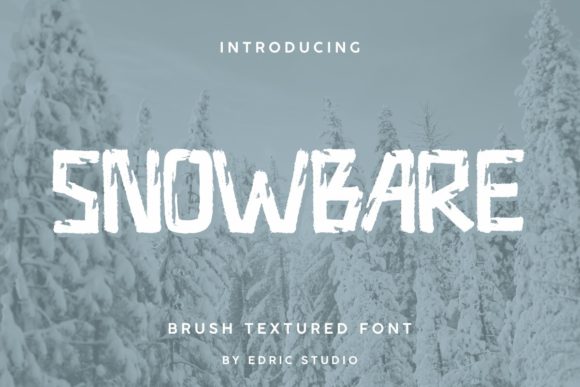
In a world of digital storytelling, where words dance and images enchant, Snowbare Font emerges as a masterpiece, a symphony of creativity designed to elevate your visual expressions. Immerse yourself in the world of Snowbare, a display font that captivates and inspires. Whether you're a seasoned designer or a budding artist, Snowbare becomes your creative ally, transforming your ideas into stunning realities.
Step into the realm of photography, where Snowbare shines as the perfect companion. Its bold and brushed strokes add a touch of elegance to your captivating shots, enhancing the emotions and stories within. With Snowbare as your creative partner, your photographs transcend mere images, becoming captivating narratives that speak to the soul.
Beyond photography, Snowbare's versatility extends to the limitless world of digital design. Craft eye-catching presentations that leave a lasting impression, or create greeting cards that warm hearts and bring smiles. Unleash your imagination and explore the boundless possibilities that Snowbare offers.
Enter the realm of Snowbare Font, where creativity knows no bounds. Its bold and engaging strokes ignite the senses, inspiring you to create masterpieces that resonate with your audience. Embrace the power of Snowbare and watch your creative visions soar to new heights.